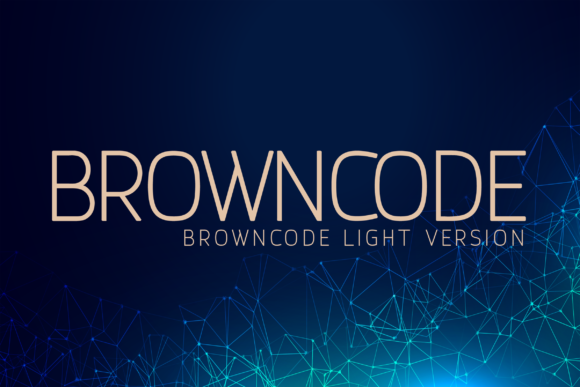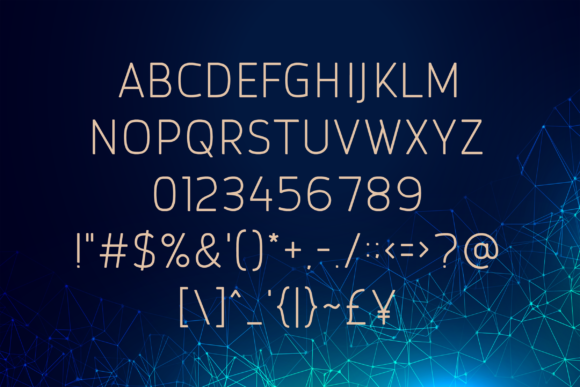
HomeSans Serif FontsBrowncode Light Font Sans Serif Fonts Browncode Light Font FacebookXPinterestWhatsApp Browncode Light Font 1 of 2 About Browncode Light Font Browncode Light is a wonderfully stylish and elegant sans serif font with perfectly balanced letters. Use it to deliver any message with clarity, style, and absolute readability! DOWNLOAD NOW People also explored Artisinal Streamline Font Waxaw Font Kon Tiki Aloha Boddrex Font Chaotic Chloe Font Yumase Font Mint Candy Font Happy Saturday Font 412 0 TagsBrowncode Light Font Previous articleBrowncode Thin FontNext articleBrowncode Font LEAVE A REPLY Cancel reply Comment: Please enter your comment! Name:* Please enter your name here Email:* You have entered an incorrect email address! Please enter your email address here Website: Save my name, email, and website in this browser for the next time I comment. Personal Use Free Indonesia Dermawan Personal Use Free Read more about this font Boldist Personal Use Free Read more about this font Malinda Personal Use Free Read more about this font Bintang Noela Personal Use Free Read more about this font BLOG Free vs Paid Fonts: Why Investing in Premium Fonts Is Worth It Free vs Paid Fonts: Why Premium Fonts Are Worth It in 2025 The debate of free vs paid fonts continues in the design world. While... Using Fonts in Digital Marketing: Tips to Strengthen Your Brand Identity How to Install and Use Fonts on Windows, macOS, and Web Projects Transform Your Website: Elevate Your Typography with 7 Best Web Font Generators